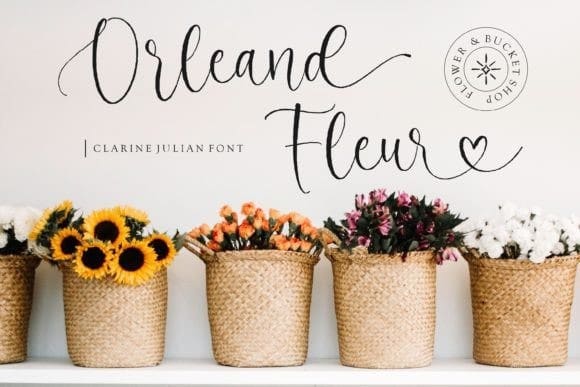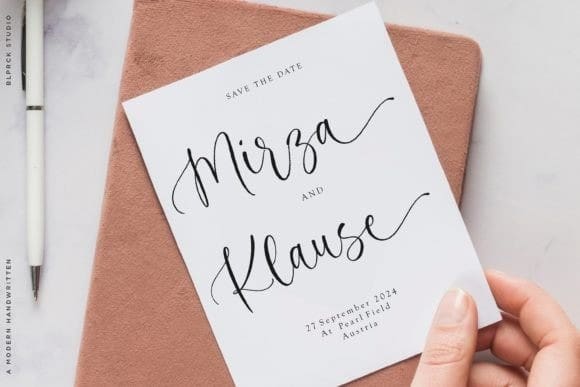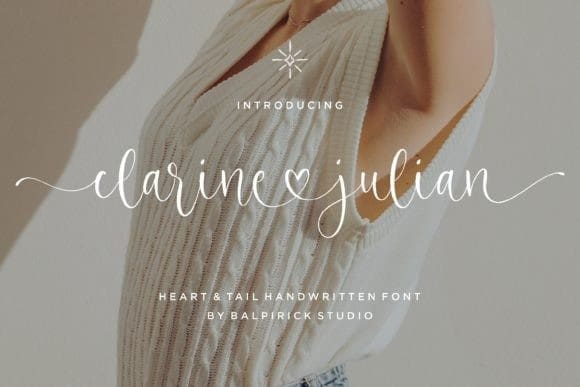
Clarine Julian Font
Clarine Julian Font a stunning handmade style with elegant tails and swashes. The flowing tails and swashes add an extra layer of sophistication and elegance, creating a beautiful and harmonious composition.
Whether you’re designing wedding invitations, branding, and other romantic project.